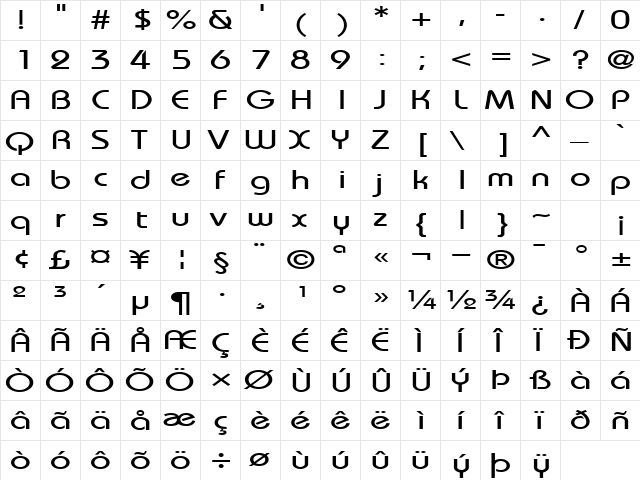
UniqueExtended Regular
Design Context for UniqueExtended Typeface
UniqueExtended is a composed and adaptable typeface that performs quietly and consistently across a wide range of design contexts.